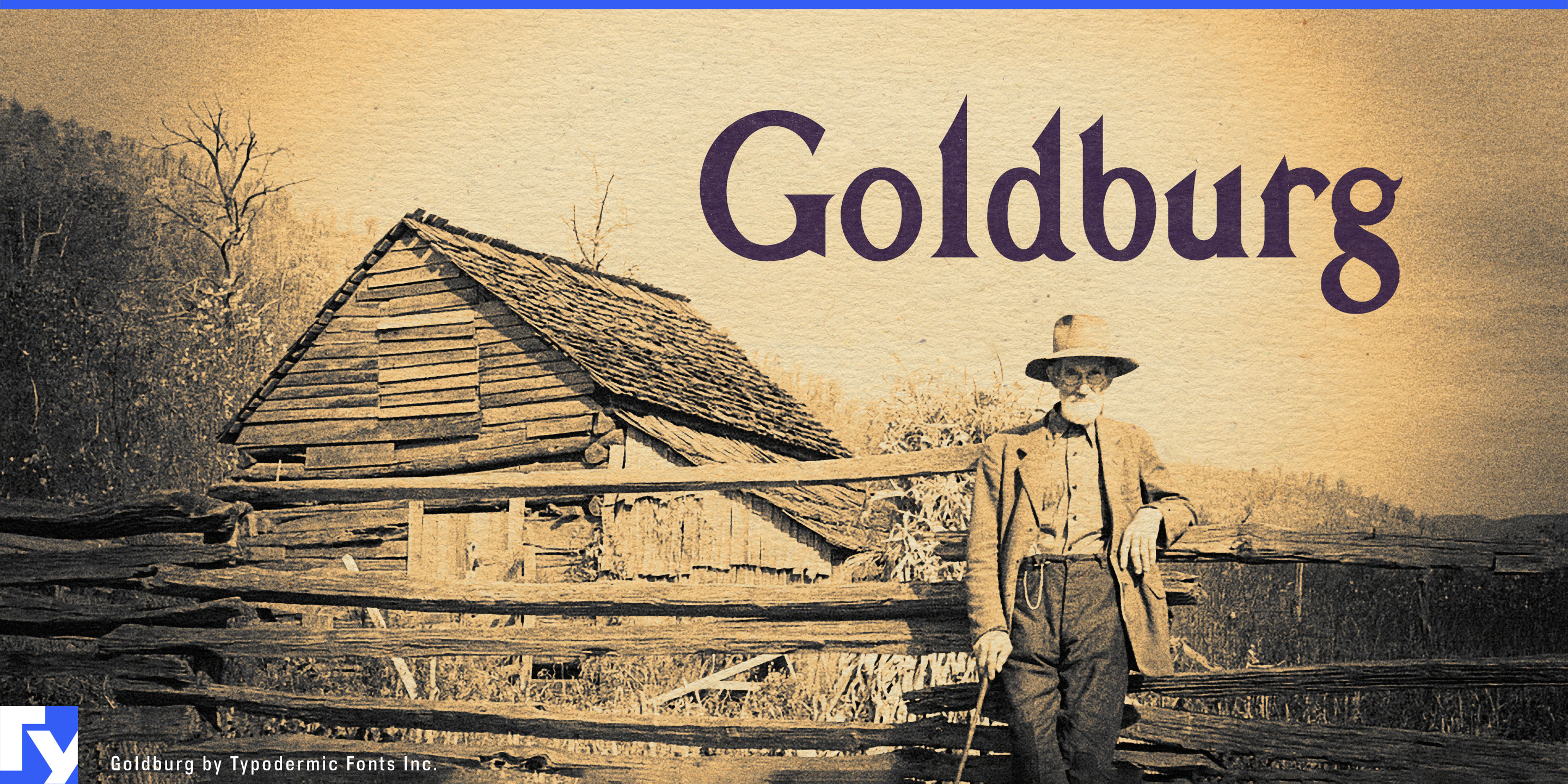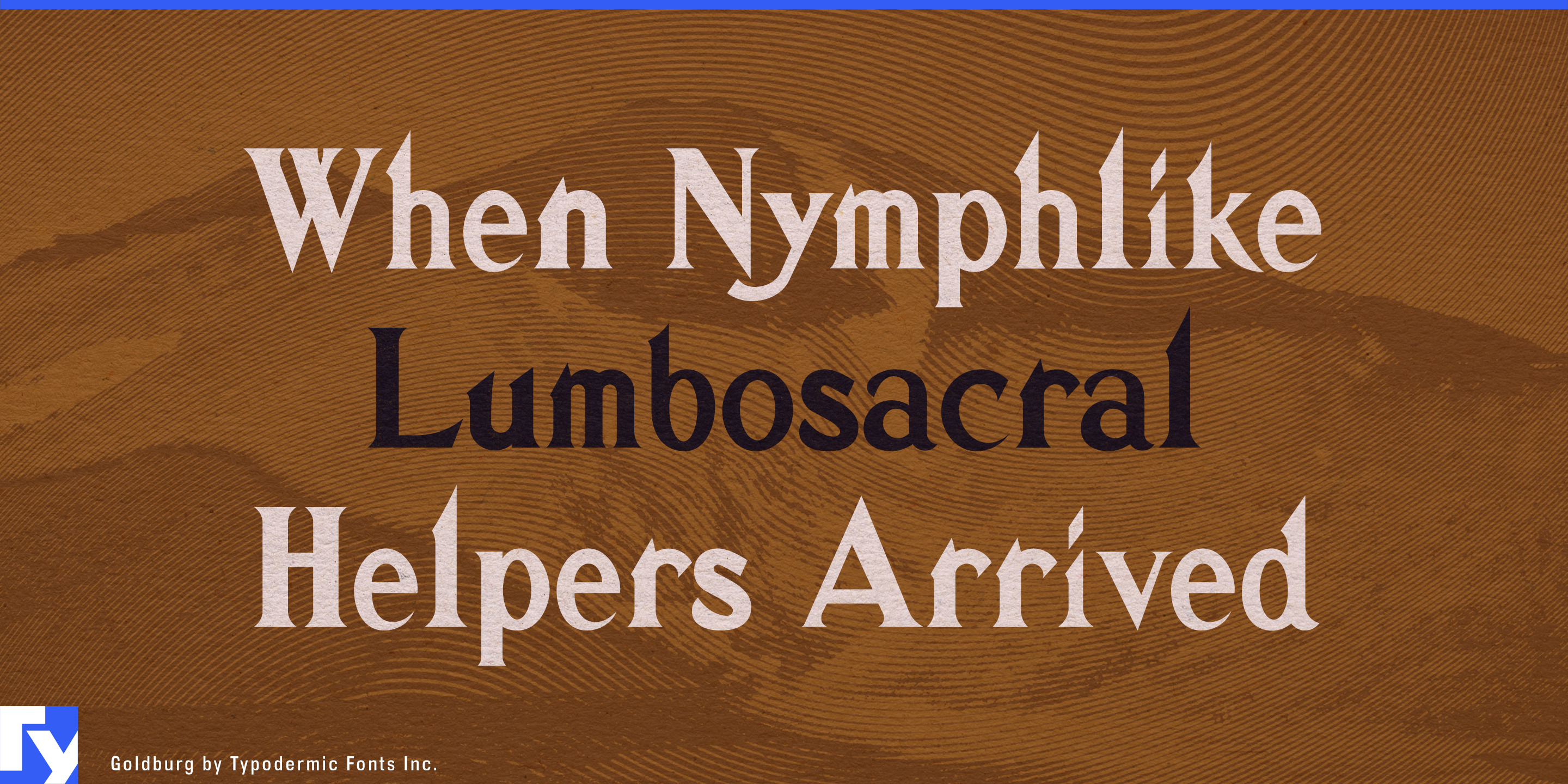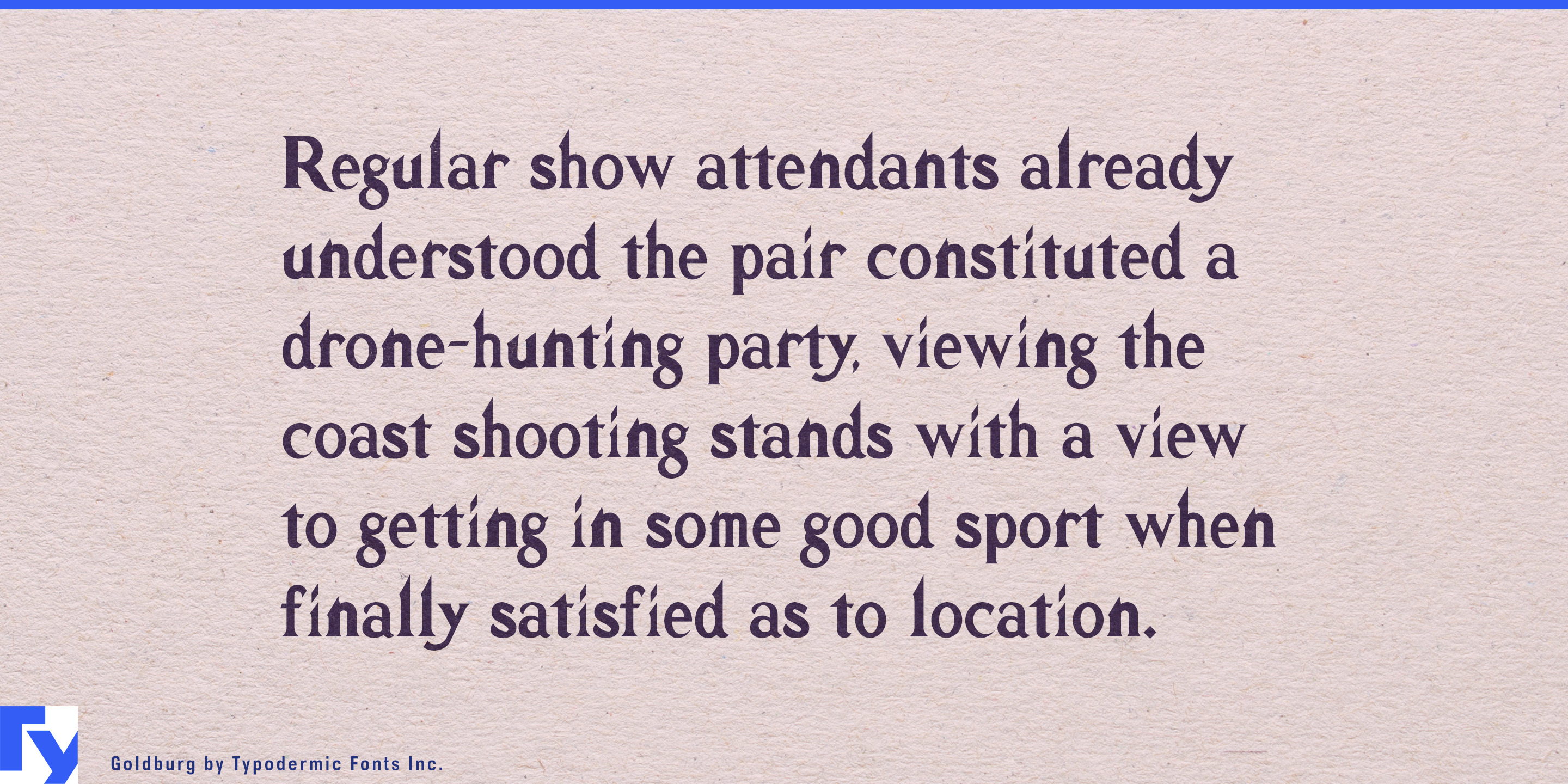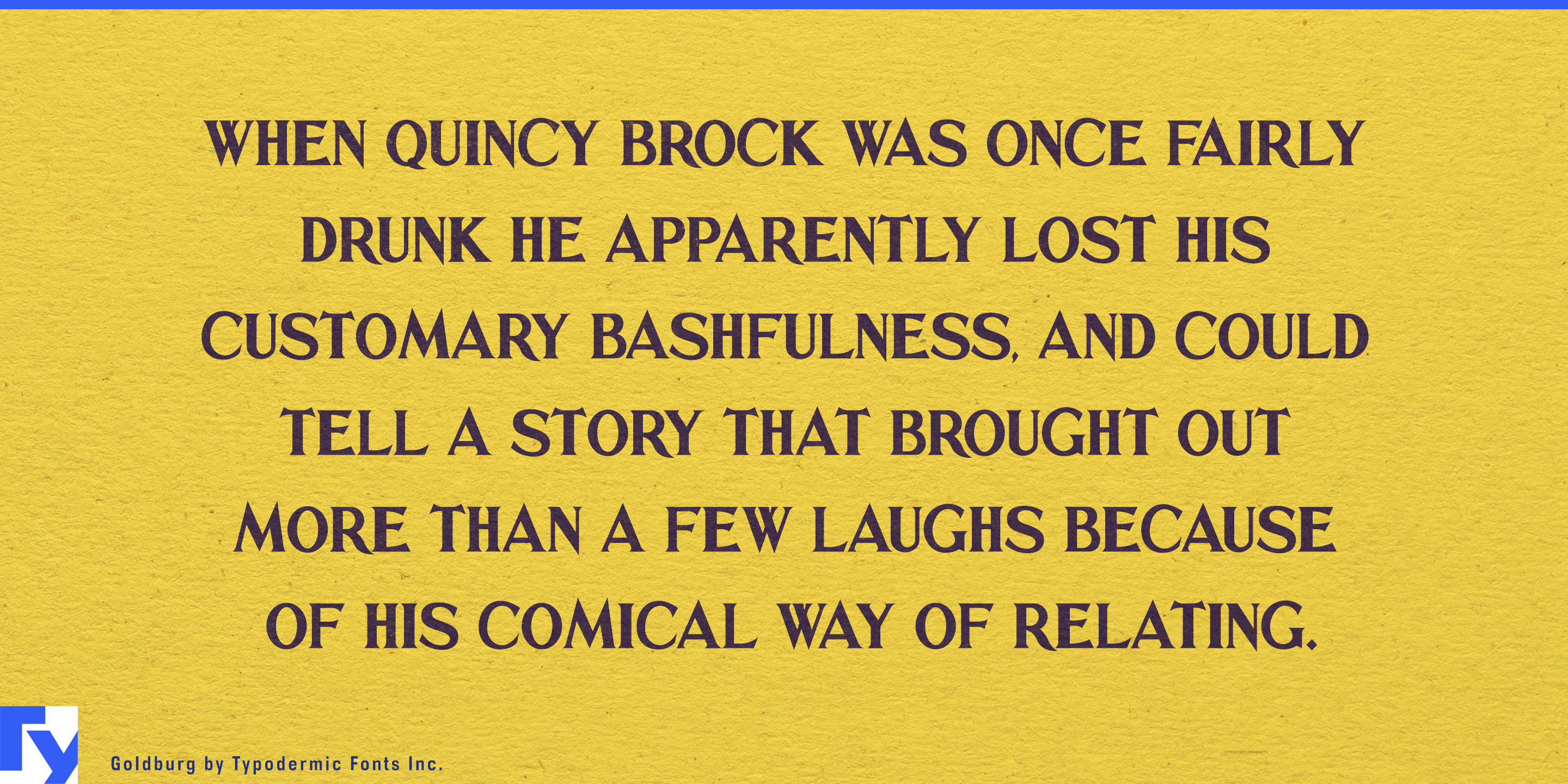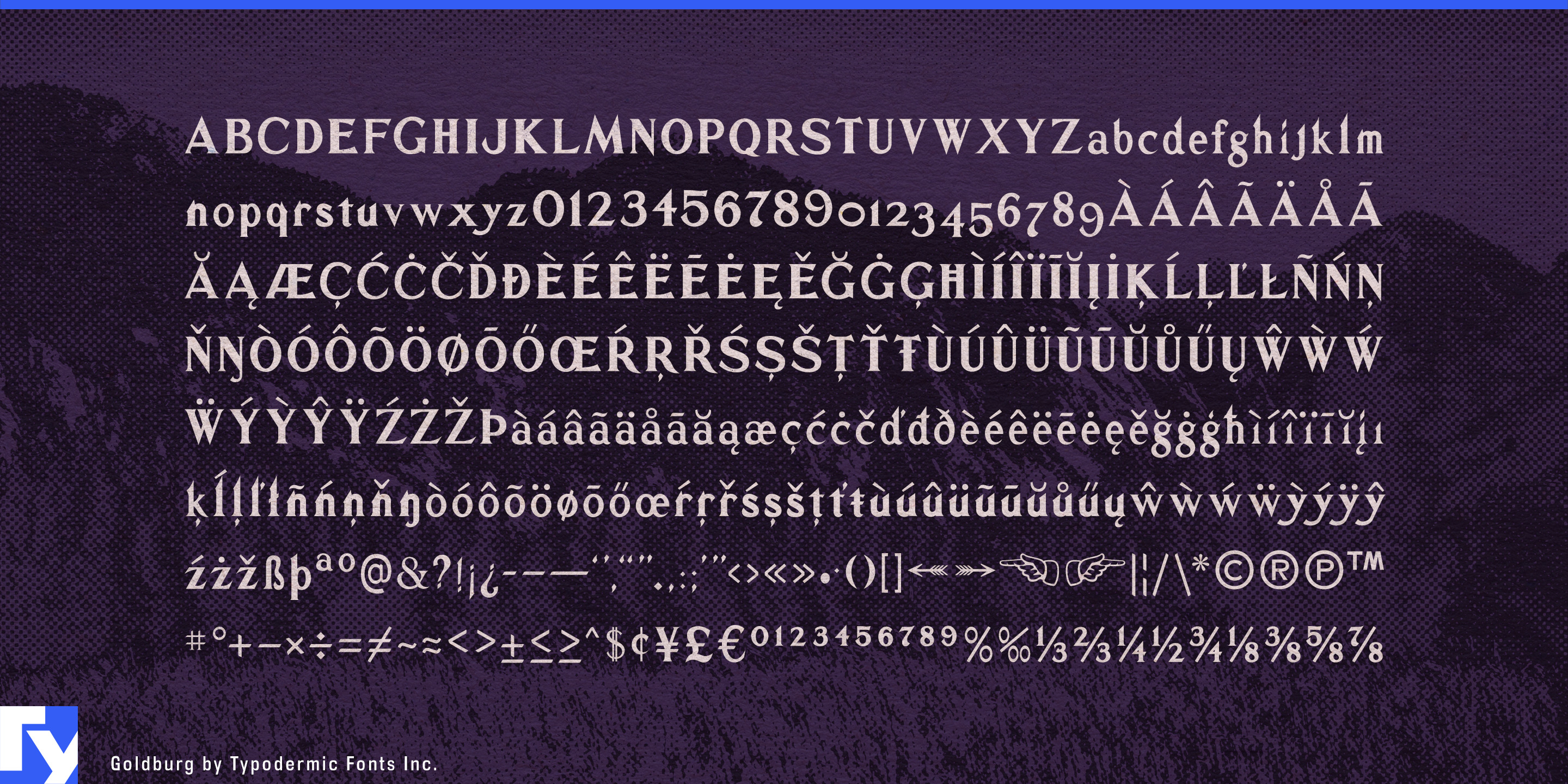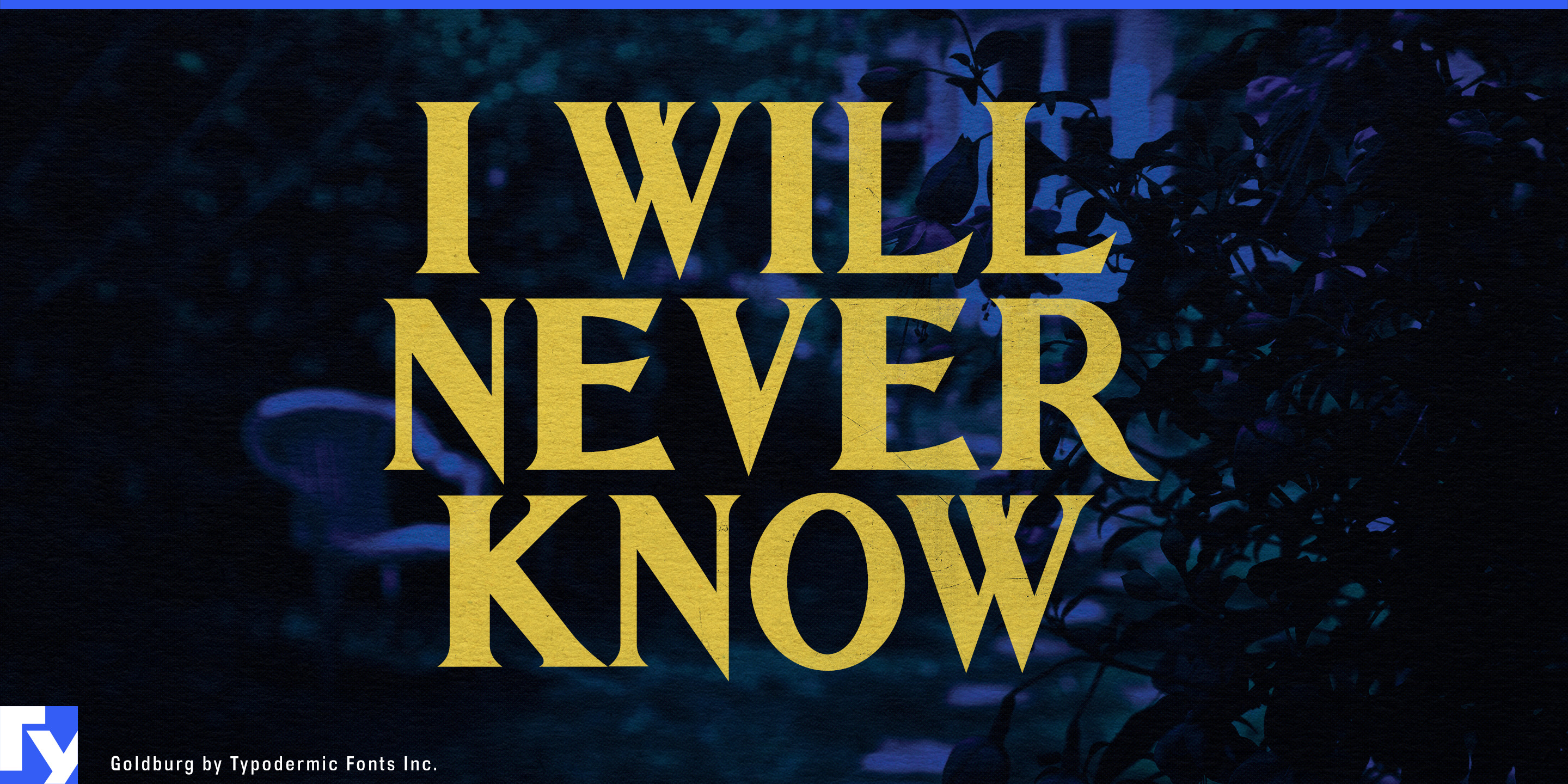
Goldburg
A project about history does not always need typography pretending to come from the period being discussed. Victorian wood type, distressed slabs and faux-antique lettering can quickly turn interpretation into costume. Goldburg takes a different route. Its source is mid-century public-history lettering: a typeface descended from signs used to explain the past rather than imitate it.
Goldburg is based on lettering George Bowditch designed in 1957 for Idaho’s historical-marker program, part of a statewide effort to treat roadsides and significant sites as an outdoor museum. The digital version preserves most of Bowditch’s distinctive forms while adjusting the spacing for contemporary use. That origin gives Goldburg an unusual historical voice: established and place-conscious, but not tied to the visual language of the century being interpreted.
Historic districts, mining towns, railway sites, preserved industrial complexes, archaeological parks and culturally significant landscapes can use Goldburg for visitor-center titles, heritage-trail identities, interpretive headings and event graphics. It can sit above maps, photographs, oral histories and artifacts without forcing every story through the typography of one particular era.
Regional-history museums, transportation collections, migration exhibitions and shows about settlement, infrastructure or environmental change face the same problem. Goldburg can give exhibition titles, gallery headings and section names an institutional historical character while leaving labels and long interpretation to a quieter companion family.
The same role extends into digital heritage. Mobile history trails, museum websites, interactive maps, location-based tours and augmented reconstructions can use Goldburg for tour names, chapter headings, map sections and digital exhibition titles, helping the screen feel like another layer of interpretation rather than a separate contemporary brand.
Historic hotels and adaptive-reuse properties can use Goldburg when the building’s past is genuinely part of the experience. Restored railway buildings, mills, civic structures and landmark commercial properties may need heritage-room names, restaurant titles, exhibition graphics and commemorative programs that acknowledge history without turning the property into a period theme.
Place-based documentaries, civic centennials, park anniversaries and long-established institutions can use the same language for series titles, chapter cards, dates, location headings and commemorative graphics.
Goldburg is a single display style, best used as the identity-bearing historical voice within a broader typography system. It does not imitate the past being exhibited; it comes from a tradition of explaining the past.